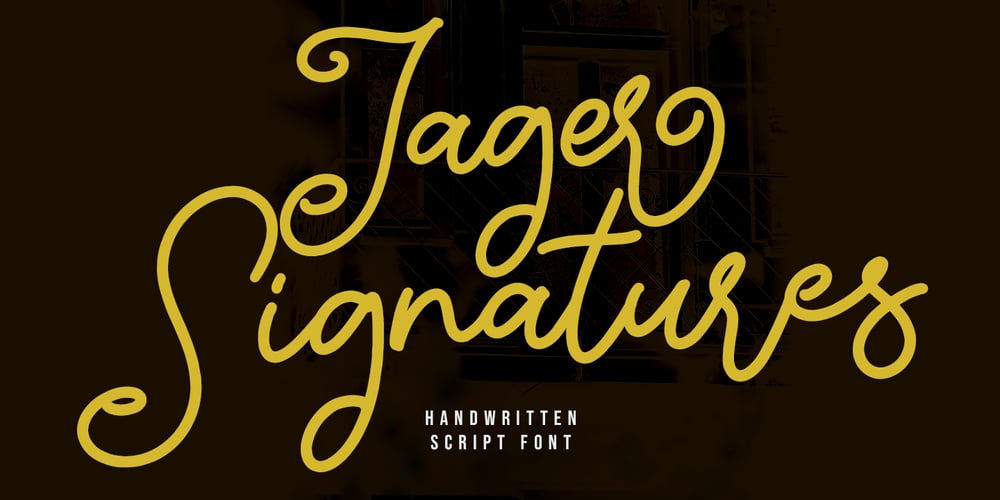
Jager Font Family was designed by Gilang Maulana and published by Maulana Creative. Jager contains 1 styles and family package options. Jager Signature is a Handwritten Display font. With contrast regular stroke, fun character with a bit of ligatures. To give you an extra creative work. Jager font support multilingual more than 100+ language. This font is good for logo design, Social media, Movie Titles, Books Titles, a short text even a long text letter and good for your secondary text font with sans or serif. Make a stunning work with Jager font. Cheers, MaulanaCreative